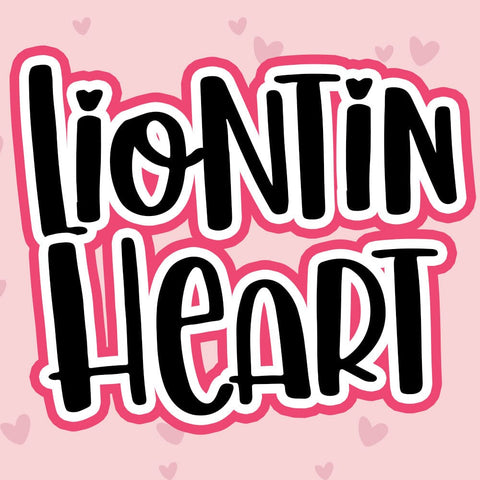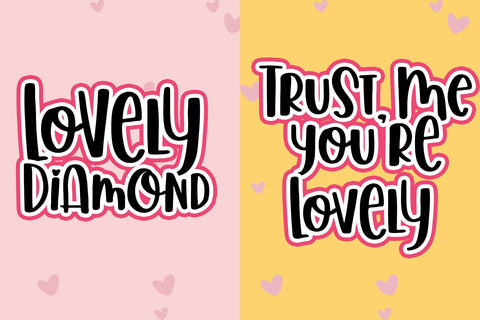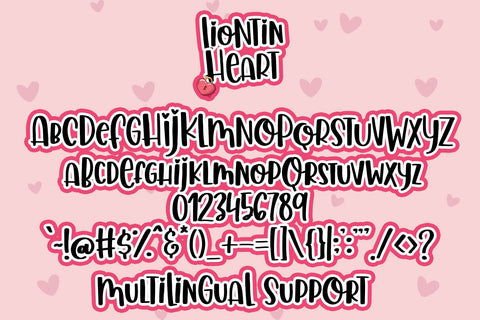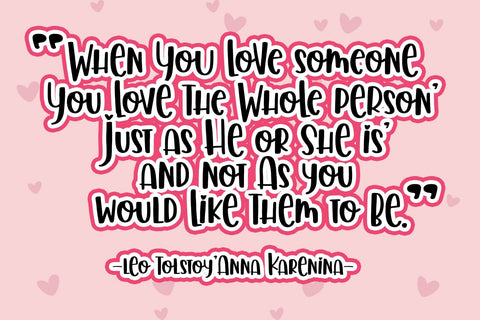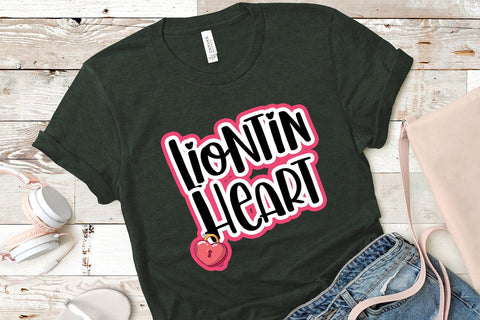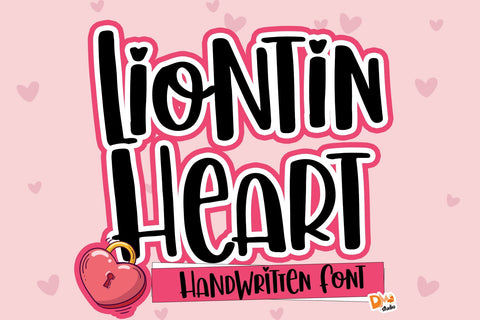
Liontin Heart Font
Liontin Heart Font is a romantic and elegant typeface that brings a touch of sophistication to your designs. Inspired by the timeless beauty of heart-shaped pendants, this font is perfect for adding a romantic flourish to wedding invitations, love letters, and heartfelt messages.
- Heartfelt Design: The Liontin Heart Font features charming heart motifs within each character, adding a romantic and whimsical touch to your text.
- Versatile Usage: Ideal for a wide range of design applications, including wedding stationery, branding, social media graphics, and more.
- Wedding Invitations: Create elegant and romantic wedding invitations with a personalized touch using the Liontin Heart Font.
- Love Letters and Greeting Cards: Infuse your love letters and greeting cards with a heartfelt charm using this distinctive font.
- Branding and Logos: Add a romantic and unique flair to your brand with a custom logo using the Liontin Heart Font.
- Social Media Graphics: Craft eye-catching social media posts and graphics that stand out with the romantic appeal of this font.
Elevate your designs with the romantic allure of the Liontin Heart Font. Let the heart-shaped motifs add a touch of love and sophistication to your creative projects.